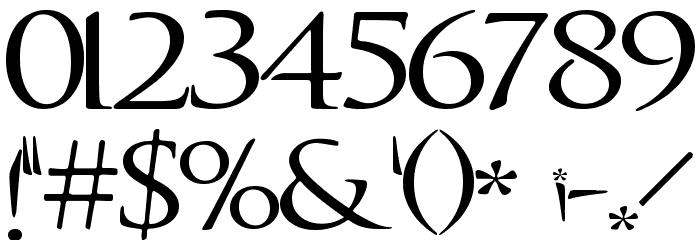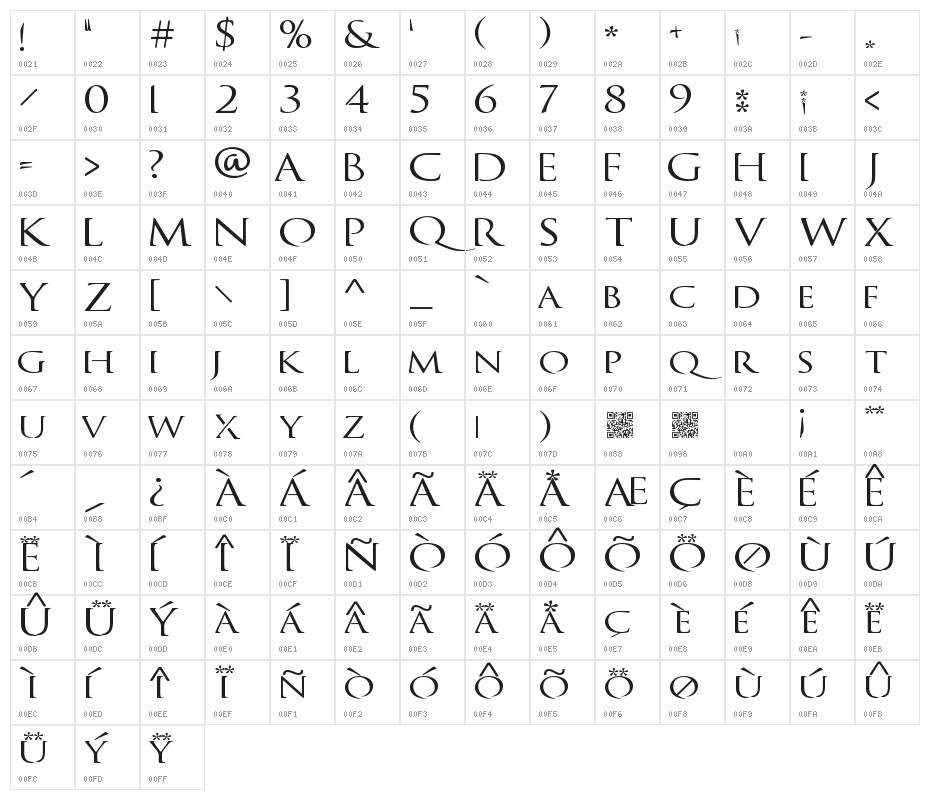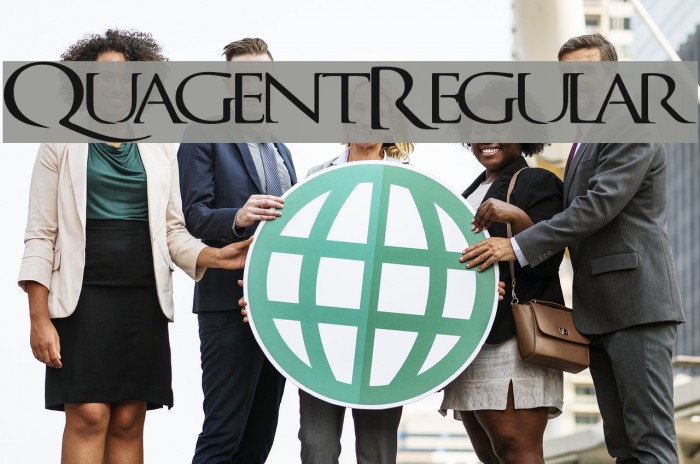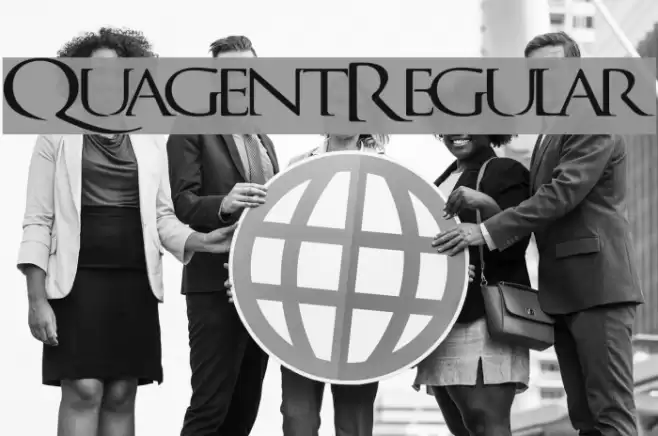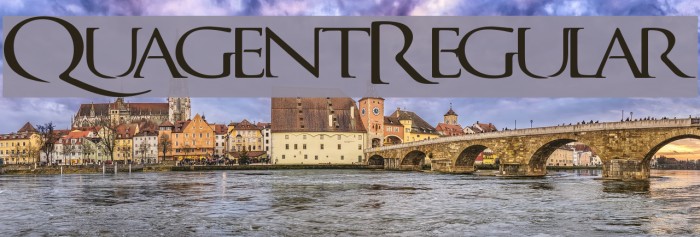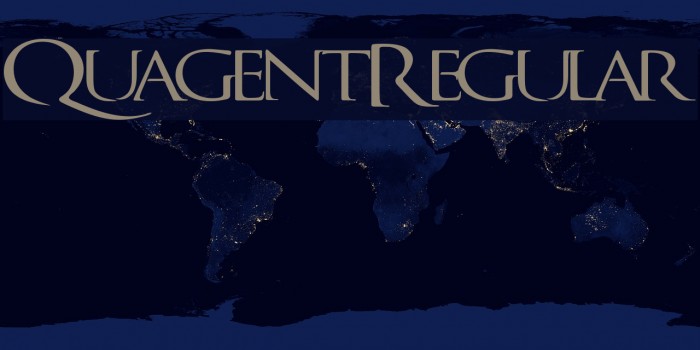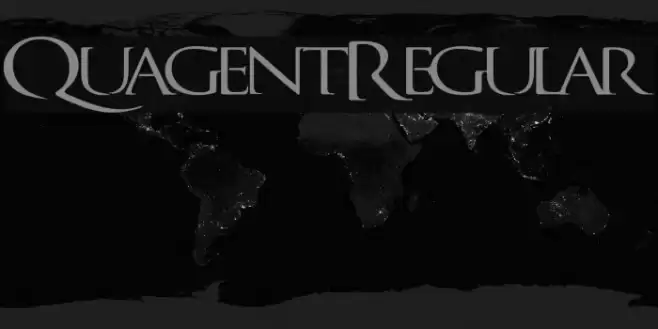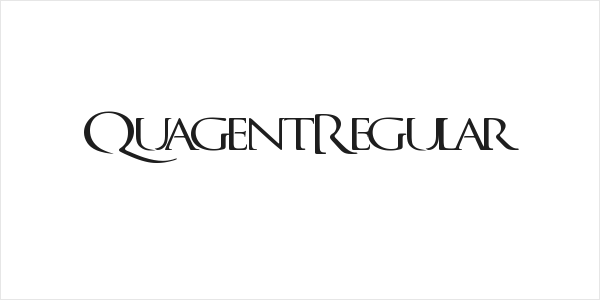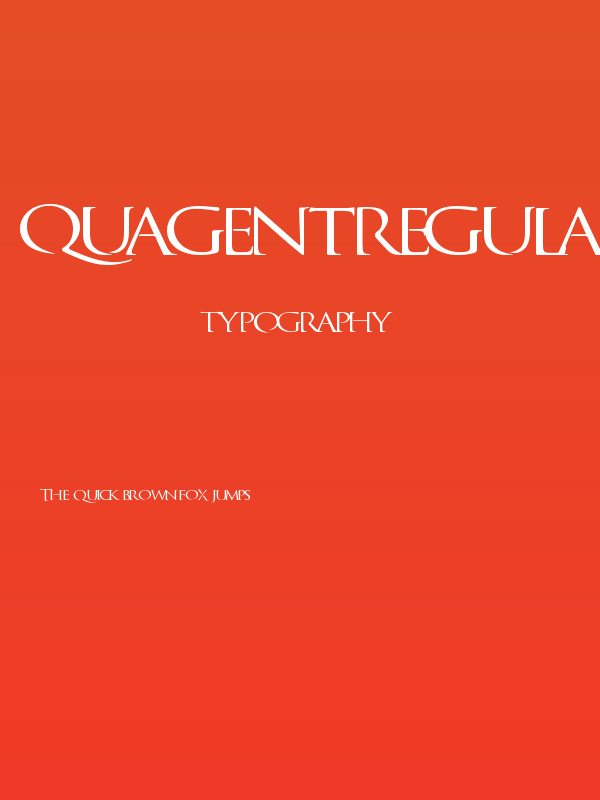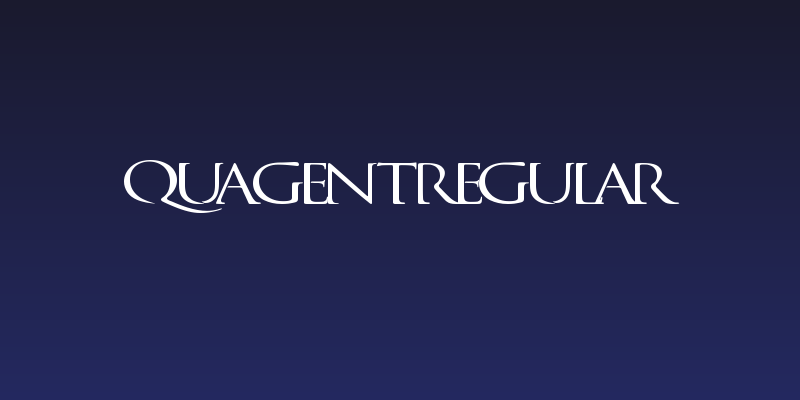
QuagentRegular Font
QuagentRegular Description
This font features a unique and artistic design with a modern flair. The characters are elegantly crafted with a blend of sharp and smooth curves, giving them a dynamic and flowing appearance. The uppercase letters are particularly striking, with elongated strokes and distinctive serifs that add a touch of sophistication. The lowercase letters maintain a consistent style, complementing the uppercase with their graceful forms. The numerals are bold and clear, ensuring readability while retaining the font's artistic essence. Special characters are creatively designed, adding to the font's overall aesthetic appeal. This font is perfect for projects that require a touch of elegance and modernity.